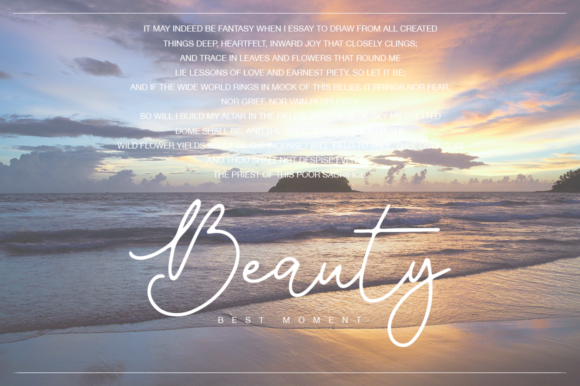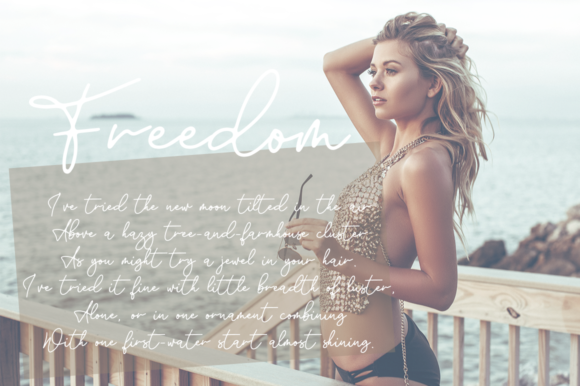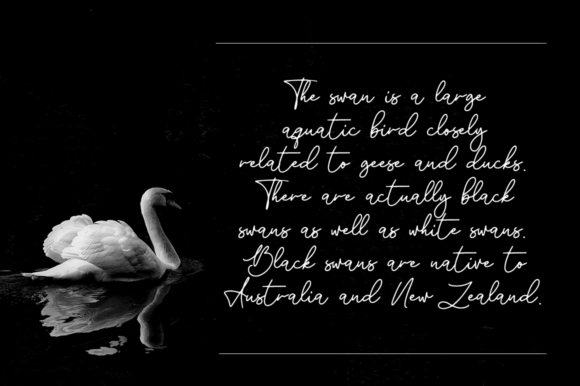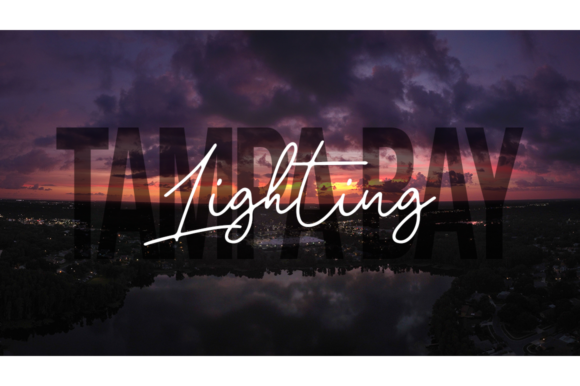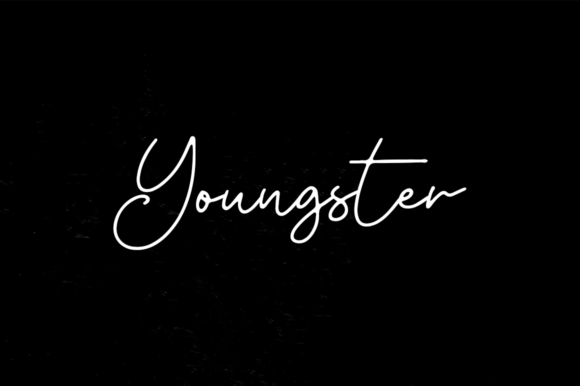
Islanders Font
About Islanders Font
Islanders is a magical script font carefully created with a touch of elegance. Whether you’re looking for fonts for Instagram or calligraphy scripts for DIY projects, this font will turn any creative idea into a true piece of art!